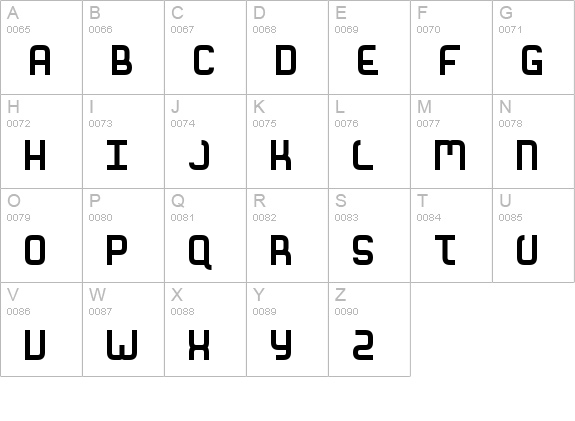
Unionform Font Details
Unionform is a stunning and versatile font that effortlessly combines elegance and modernism. With its clean lines and balanced proportions, it exudes a sense of sophistication and professionalism. This extraordinary font is perfect for a wide range of design projects, from branding and logo design to editorial layouts and web design. One of the most remarkable features of Unionform is that it is available for free. Yes, you read that right! This exceptional font can be freely downloaded at FontsMarket.com, making it accessible to designers and creatives of all levels. Whether you are a seasoned professional or just starting your design journey, Unionform is a must-have font in your collection. Its timeless appeal and versatility make it suitable for any project, while its free availability ensures that you can use it without any limitations. Download Unionform today from FontsMarket.com and unlock a world of possibilities for your design projects. Elevate your work with this elegant and modern font, and let your creativity soar to new heights. Start creating stunning designs that leave a lasting impression with the help of Unionform.